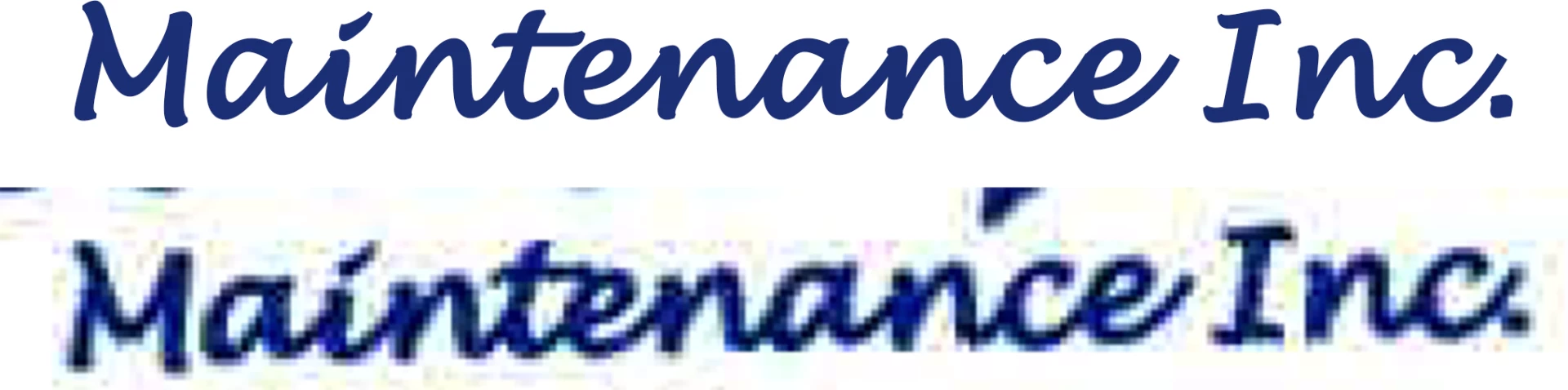
What's the name of this font?
Have seen this many times and used to be good at font ID.... Can't remember this one.
Anybody? Whatthefont & Whatfontis can't do.
Lucida Handwriting italic bold/ultra bold.
I concur with Derek: Lucinda Handwriting, Bold (or Bolded)
Gotcha Lucida Handwriting Italic right on. Not bold, probably was a lousy scan of a thermo business card that heavied up the original quite a bit.
Lucida Handwriting italic bold/ultra bold.
Thanks! Right on the money... image was from a lousy customer scan from what I think was a thermo business card, so it heavied up quite a bid.
Looks like Caflisch-Script, but slightly different...
Thanks, but Lucida Handwriting Italic from another tip on this forum.